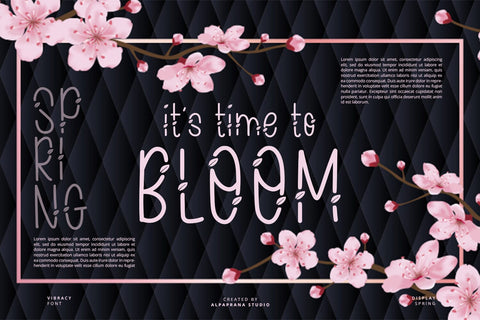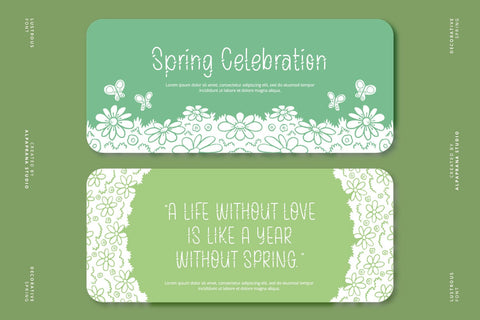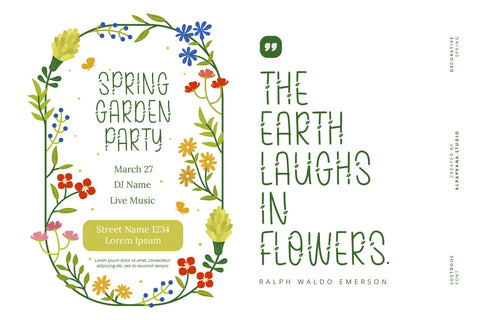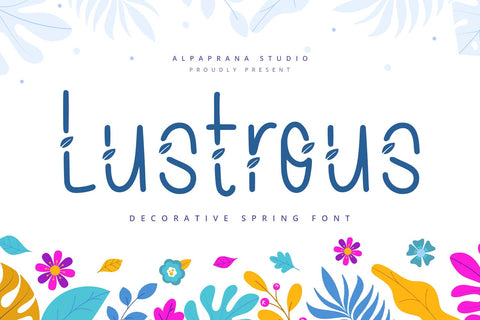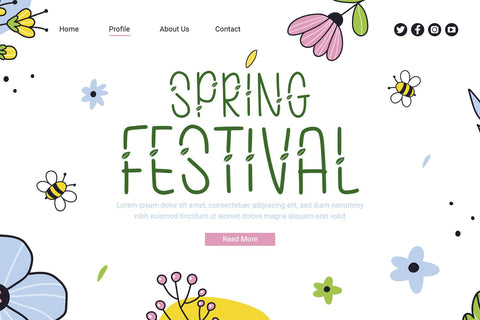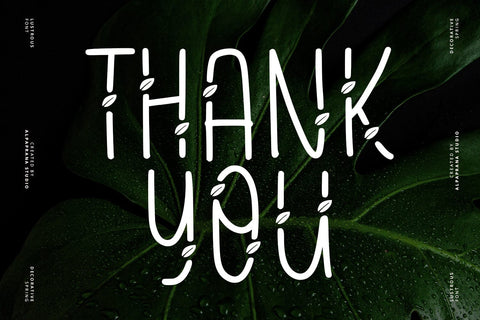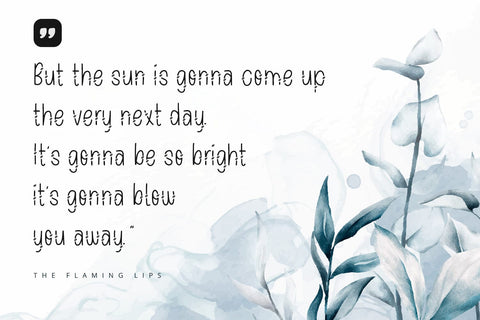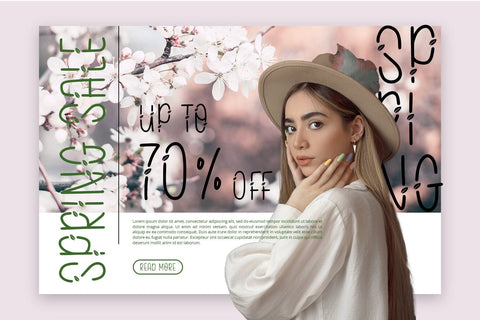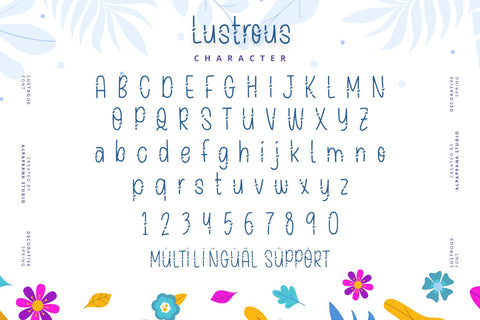
Lustrous - Display Font
Lustrous is a decorative display font with natural and modern feels. It will be perfectly used for Branding, Logo Design, Lettering, Logotype, Clothing, Poster, magazine, packaging, posters, shopping bags, t-shirts, book covers, photography, special events and other design project.